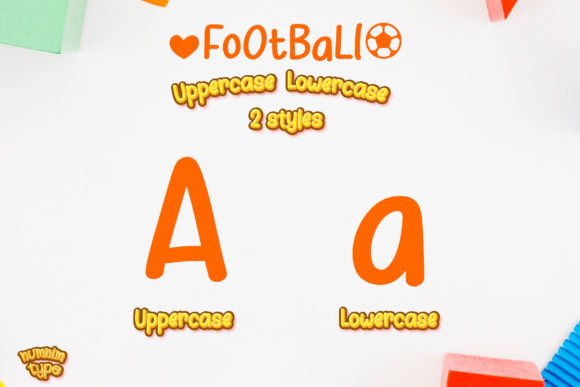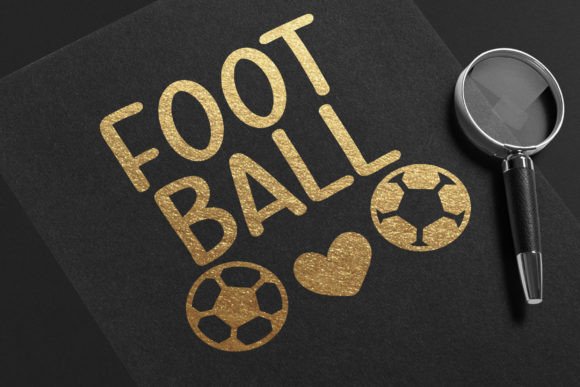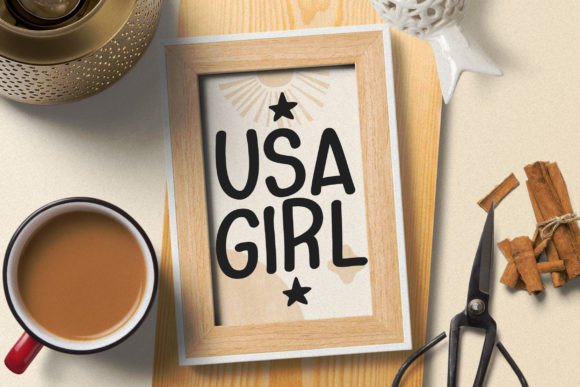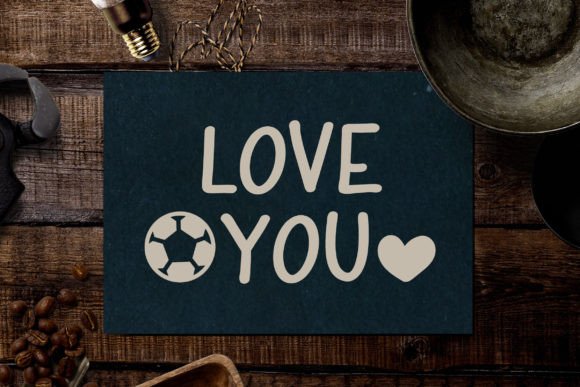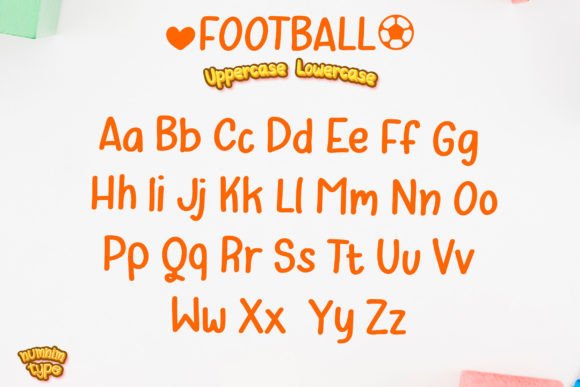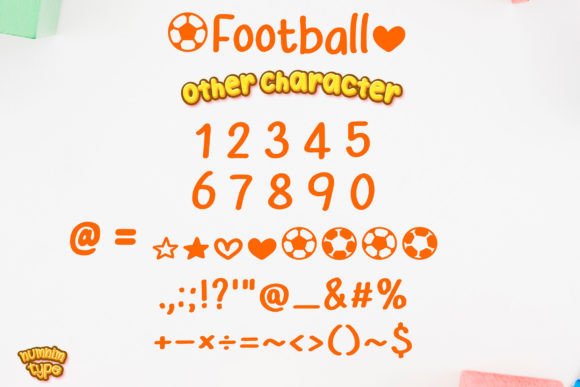
Introducing Football Font: The Perfect Choice for Sports-Themed Designs
Are you a designer or crafter looking for a unique and playful font to add a touch of personality to your sports-themed projects? Look no further than Football Font, a cute and uniquely crafted display font that’s perfect for a variety of applications. In this article, we’ll take a closer look at Football Font, its features, and how you can use it to elevate your designs.
What is Football Font?
Football Font is a fun and playful display font that’s specifically designed to capture the spirit of football. Its characters are carefully crafted to be both cute and distinctive, making it the perfect choice for a wide range of projects, from stickers and mugs to t-shirts and ornaments.
Key Features of Football Font
- Fun and Playful Characters: The font features a range of fun and playful characters that are sure to add a touch of personality to your designs.
- Highly Versatile: Football Font is perfect for a wide range of projects, including stickers, mugs, t-shirts, ornaments, football event cards, and more!
Uses for Football Font
Football Font is a highly versatile font that can be used for a wide range of projects. Here are some ideas to get you started:
- Stickers: Add a touch of personality to your stickers with Football Font. Perfect for sports-themed stickers, team logos, or motivational quotes.
- Mugs: Create unique and personalized mugs with Football Font. Perfect for football fans, teams, or sports-themed designs.
- T-Shirts: Design eye-catching t-shirts with Football Font. Perfect for football teams, sports-themed designs, or fun and playful quotes.
- Ornaments: Add a touch of personality to your ornaments with Football Font. Perfect for sports-themed ornaments, team logos, or motivational quotes.
- Football Event Cards: Create professional-looking football event cards with Football Font. Perfect for football teams, sports events, or tournaments.
Tips for Using Football Font
Here are some tips for using Football Font to get the most out of your designs:
- Experiment with Different Sizes: Football Font looks great in a variety of sizes, from small and delicate to large and bold. Experiment with different sizes to find the perfect fit for your project.
- Combine with Other Fonts: Football Font pairs well with a range of other fonts. Try combining it with a sans-serif font for a modern look or a script font for a more elegant feel.
- Use Swashes and Glyphs: Football Font features a range of swashes and glyphs that can be used to add a touch of personality to your designs. Experiment with different swashes and glyphs to find the perfect fit for your project.
Football Font is a unique and playful display font that’s perfect for designers and crafters looking to add a touch of personality to their sports-themed projects. With its PUA encoding, fun and playful characters, and highly versatile design, Football Font is the perfect choice for a wide range of applications. Whether you’re designing stickers, mugs, t-shirts, ornaments, or football event cards, Football Font is sure to elevate your designs and help you stand out from the crowd.